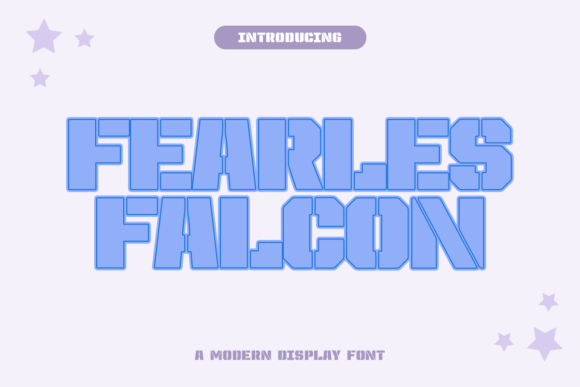
Unleash the Unapologetic: Fearless Falcon Font
There’s that moment when a font suddenly clicks, and the entire design falls into place. You know the one – where the words leap off the page, and the message becomes impossible to ignore. That’s what happens when you pair your work with the Fearless Falcon Font, a display typeface that refuses to blend in. Designed to dominate visual space, Fearless Falcon Font cuts through the noise, leaving a lasting impression on your audience.
Whether you’re crafting headlines, branding, or statement pieces, the Fearless Falcon Font brings a sense of power, confidence, and unapologetic presence. It’s not a font for the background; it’s built to lead. For designers, the Fearless Falcon Font offers a valuable tool for making a statement and cutting through the clutter. Its razor-sharp edges and bold forms are sure to elevate your work and leave a lasting impact.
Fearless Falcon Font Key Features
- Unique Character Set: Includes a wide range of characters, including Cyrillic and Greek alphabets, as well as a variety of symbols and punctuation marks.
- Weight and Style Options: Available in Light, Regular, Medium, Bold, and Extra Bold weights, with corresponding italic styles for added versatility.
- Font Metrics: Designed with precise font metrics for optimal legibility and readability, making it suitable for body text, headings, and titles.
Fearless Falcon Font Review
I’ve had the chance to work with the Fearless Falcon font, and overall, I think it’s a solid choice for a variety of projects. ✨ The font has a unique, bold aesthetic that’s perfect for headlines or titles. The bold and extra bold weights are particularly well-suited for making a statement.
- ✨ The font’s boldness and playfulness work well in modern designs, especially for branding and marketing materials.
- ✨ The font is highly legible, even at smaller font sizes, making it suitable for body text and smaller displays.
- ✨ The font’s versatility allows it to work well in both digital and print applications.
However, there are some limitations to consider. ⚠️ The font’s boldness can sometimes make it difficult to read at very small font sizes, and the font may not be as effective in more traditional or conservative designs.
- ⚠️ The font may not be the best choice for projects where readability is a top priority.
- ⚠️ The font’s boldness can be overwhelming in certain contexts.
Overall, I think the Fearless Falcon font is a great choice for designers looking for a bold, playful font. While it may not be the best fit for every project, it’s definitely worth considering for the right application.
Tips for Getting the Most Out of Fearless Falcon Font
Here are a few tips for getting the most out of Fearless Falcon Font:
- Use the font in bold or italic styles to add emphasis to your text.
- Pair the font with other fonts to create a unique and visually appealing design.
- Use the font in a variety of colors to add visual interest to your design.
Common Use Cases for Fearless Falcon Font
Fearless Falcon Font is a versatile font that can be used in a variety of applications, including: